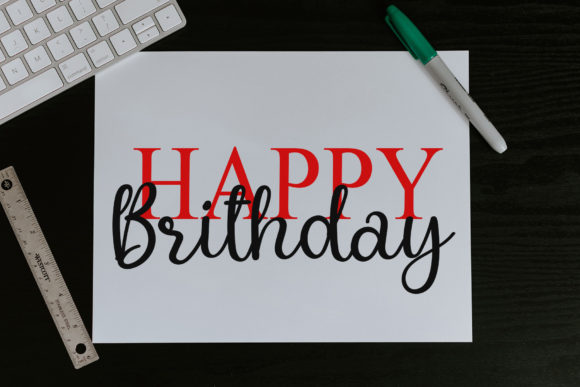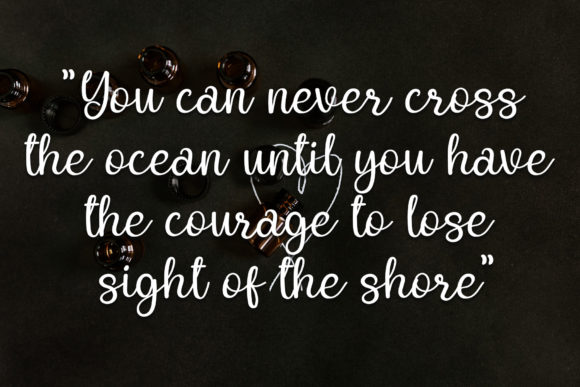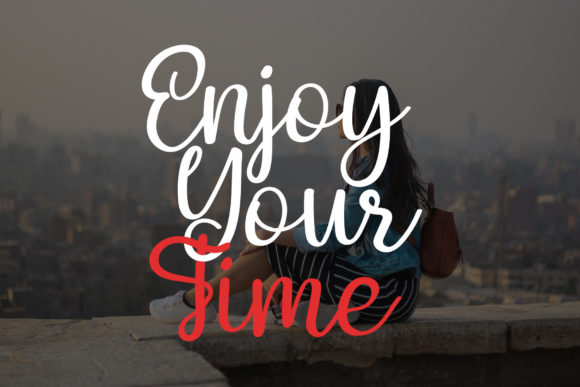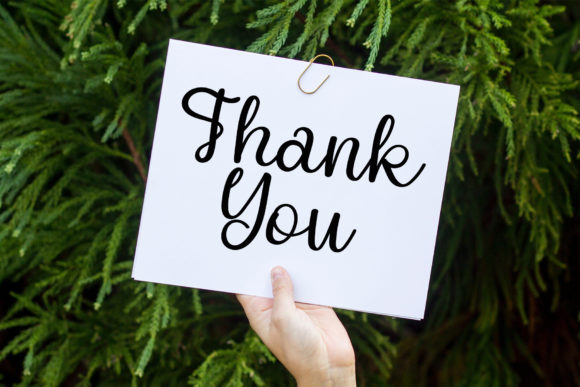
About Fortuna Font
Fortuna is a fun and friendly handwritten font that injects a sense of joy and personality into any design idea. With its unique charm, this font serves as an inspiration to create lovely and standout designs that captivate and engage.
At its core, Fortuna exudes a playful and friendly energy through its handwritten style. The letters carry a sense of spontaneity, adding a touch of character and warmth to your text. This font is perfect for projects that aim to convey a lighthearted and approachable vibe.
The uniqueness of Fortuna’s charm lies in its ability to transform ordinary designs into true standouts. Whether you’re working on creative branding, expressive social media posts, or any design that requires a touch of friendliness, Fortuna becomes a valuable asset.
The fun and friendly nature of Fortuna make it a versatile choice for various design applications. Its handwritten charm brings a sense of authenticity to your creations, making it suitable for a wide range of projects where a personal and inviting touch is desired.
In summary, Fortuna is not just a font; it’s a fun and friendly tool that sparks inspiration and adds a unique charm to your designs. With its handwritten style, Fortuna turns any design idea into a true standout, creating lovely and engaging visuals. Incorporate this font into your projects to infuse them with a delightful and approachable personality, making your designs truly memorable.